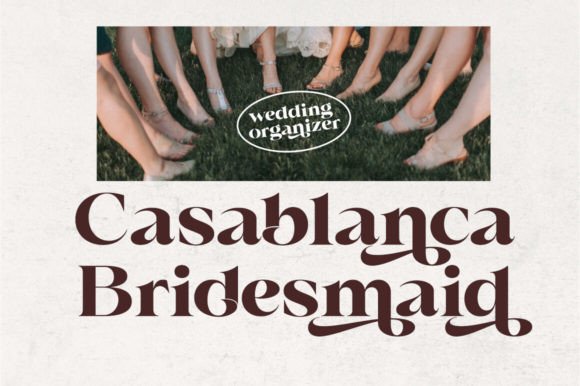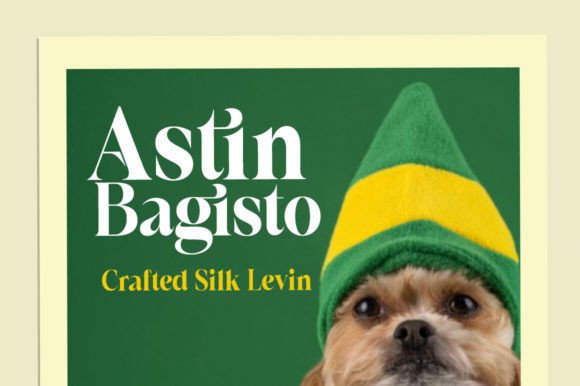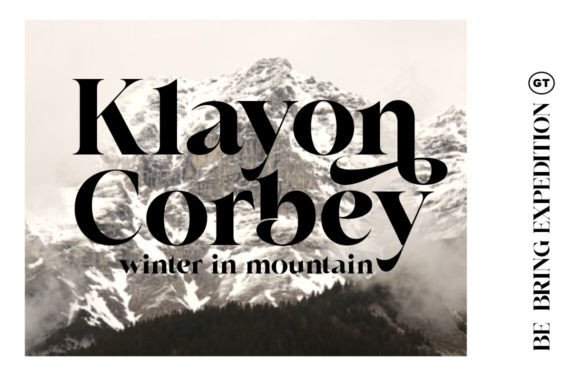
Introduction to Riodis Font
Have you ever been browsing through a high-end fashion magazine, and the typography catches your eye? The elegant lines, the sophistication, and the luxury feel it exudes make you pause and appreciate the design. That’s exactly the kind of impact Riodis Font is designed to create. This stunning serif font is perfect for luxury-themed projects, and in this article, we’ll delve into its unique features and benefits.
As a designer, you’re always on the lookout for the perfect design resource to elevate your creative project. Riodis Font is a game-changer, offering a luxurious and elegant appearance that’s sure to make your design stand out. Whether you’re working on a branding project, creating a magazine layout, or designing a website, this font is a valuable addition to your design arsenal.
Key Features of Riodis Font
- High-quality design resource suitable for various creative projects, including digital art and graphic design.
- Features a transparent background, allowing for seamless integration into different design elements and backgrounds.
- Designed to be highly legible and versatile, making it suitable for use in various contexts, from titles and headings to body text.
- Includes a range of font sizes, with a maximum size of 1024px and a minimum size of 12px, allowing for flexible use in different design projects.
- Available in high resolution (300 DPI), ensuring crisp and clear display on various devices and screens.
Honest Review: Riodis Font
I recently came across the Riodis Font while searching for a free download to enhance a creative project. I must say, I was impressed with its unique style and versatility.
Here are some aspects that work well: ✨
- High-quality design: The font has a crisp and clear look, making it perfect for digital and print designs.
- Transparent background: This feature allows for seamless integration with various design elements and backgrounds.
- Font style variety: Riodis Font offers a range of styles, from bold to italic, catering to different design needs.
- Limited font sizes: While the font offers various styles, the number of font sizes is relatively limited.
- No bold italic variant: The absence of a bold italic variant might be a concern for designers who require this specific style.
Overall, I’m impressed with the Riodis Font’s design quality and versatility. It’s an excellent addition to any designer’s toolkit, especially for those working on creative projects that require a unique touch.
Tips for Getting the Most Out of Riodis Font
To maximize the effectiveness of the Riodis Font, experiment with different font sizes, colors, and combinations to achieve a unique design. Use it in conjunction with other design resources to create a cohesive visual identity.
The Riodis Font is ideal for creative projects that require a high-quality, unique design. Common use cases include graphic design, branding, and digital art.